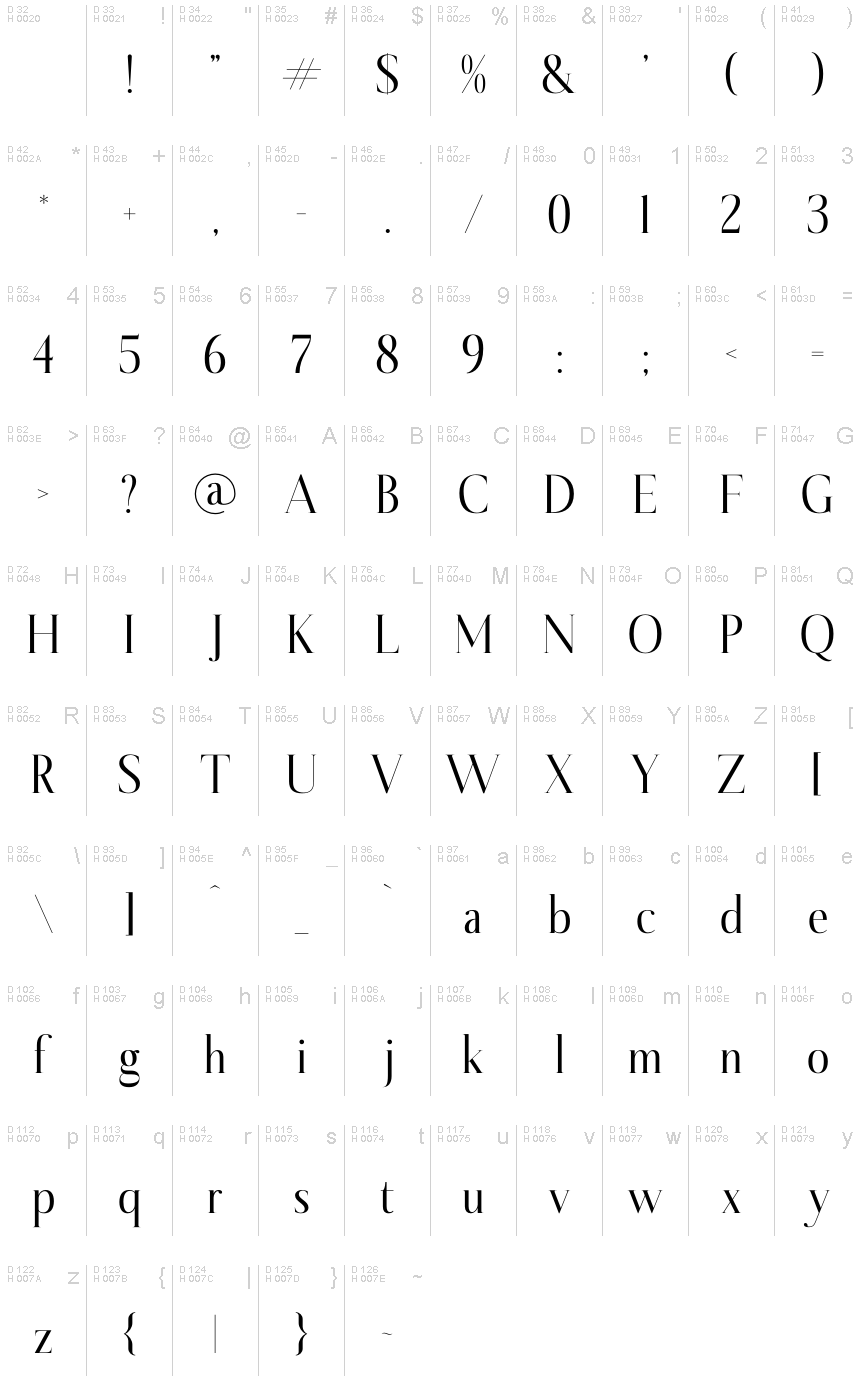
Serfiyan
Serfiyan by Storytype Studio is a mesmerizing serif font that captivates with its elegant and refined design. The striking curves and distinctive serifs immediately draw attention, giving each letter a sophisticated flair. This font exudes a timeless charm, perfect for creating an impression of grace and class.
The visual appeal of Serfiyan makes it an ideal choice for upscale branding, editorial design, and luxurious product packaging. Its balance of delicate strokes with bold features ensures versatile application across various mediums while maintaining a cohesive, polished look.
Embrace the elegance of Serfiyan to elevate your projects with a touch of classic beauty.